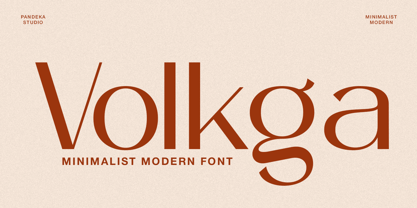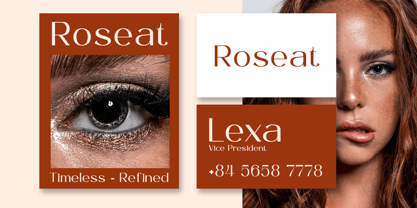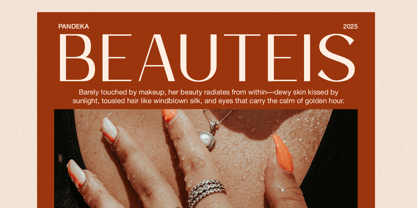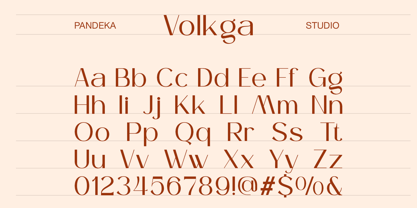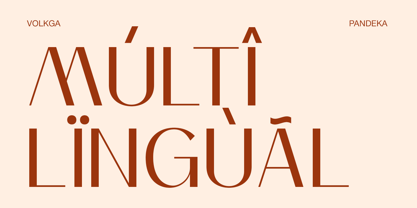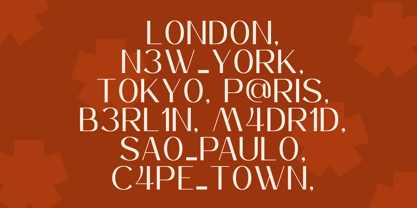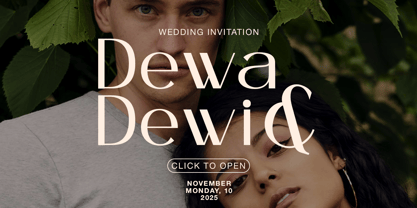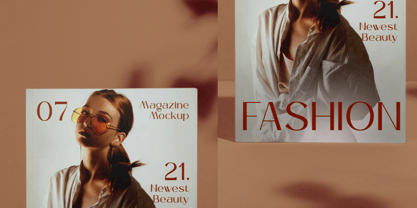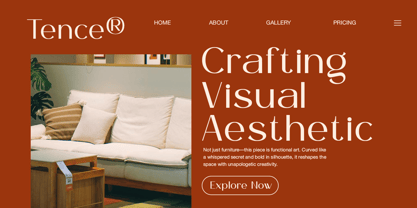
Volkga
Volkga is a minimalist sans serif font with a clean, modern look, perfect for skincare, beauty, and lifestyle branding. Its regular style features simple geometric forms and balanced proportions, giving every design a sense of elegance, clarity, and sophistication.
Ideal for logos, cosmetic packaging, product labels, social media, and editorial use, Volkga is a versatile choice for brands that want to project trust, purity, and timeless beauty.
• 2 Style: Regular and Oblique
Elevate your skincare and beauty projects with Volkga, a sans serif font that blends simplicity and modern charm.